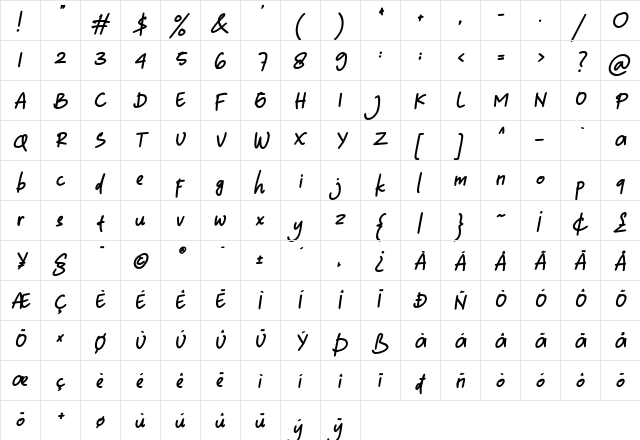
Yournotes Bold Italic
| Foundry | Garisman Studio |
| Designer | Risman Ginarwan |
Design Context for Yournotes Typeface
Yournotes takes a measured approach to typography — its balanced proportions and neutral character make it a reliable workhorse for both digital and print work. The dynamic lean of this cut emphasises speed and emphasis in any layout. Its bold stroke weight gives it real presence on the page.